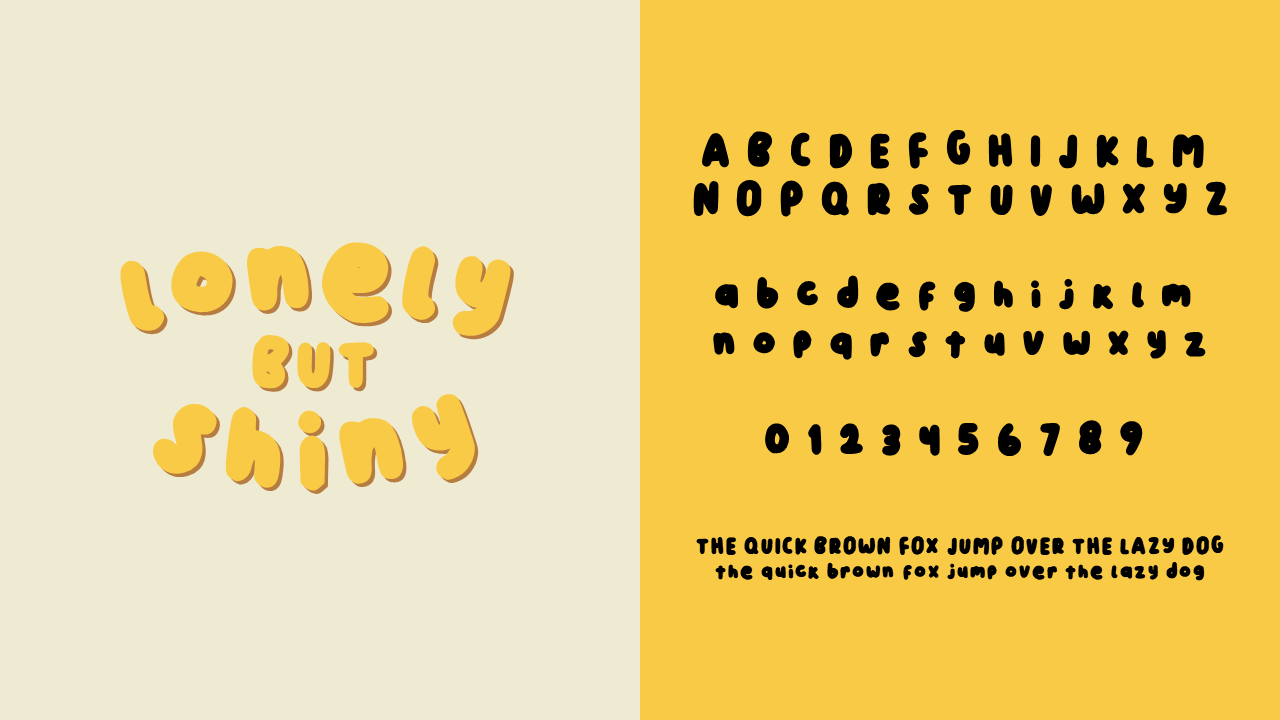
Sunkissed Font
Sunkissed Display Font
This is a cute playful bubble font. Perfect for branding projects, Logo design, Clothing Branding, product packaging, magazine headers, or simply as a stylish text overlay to any background image.